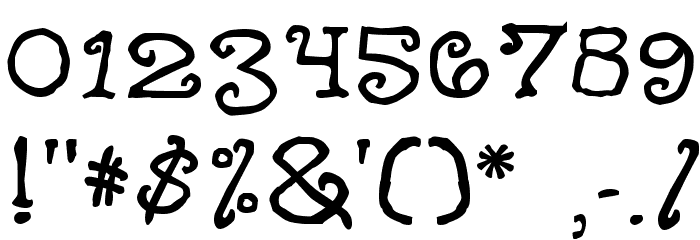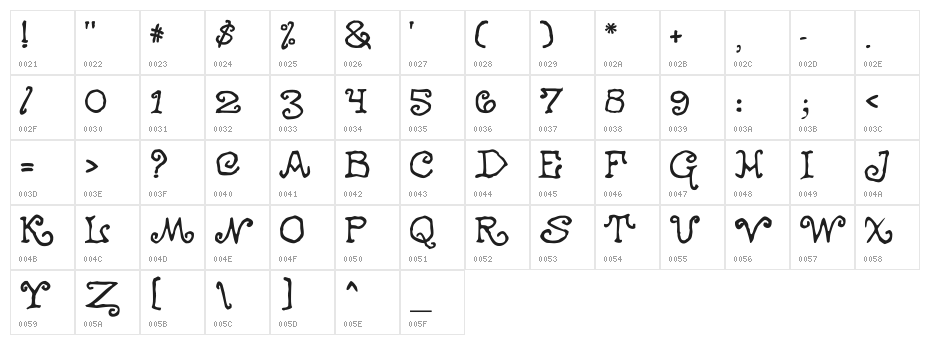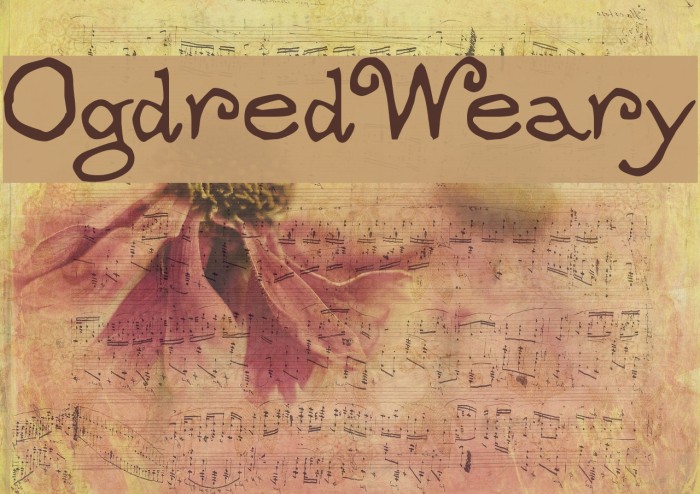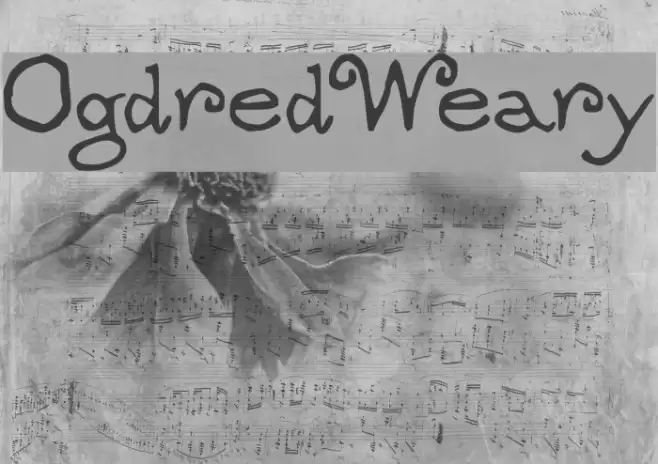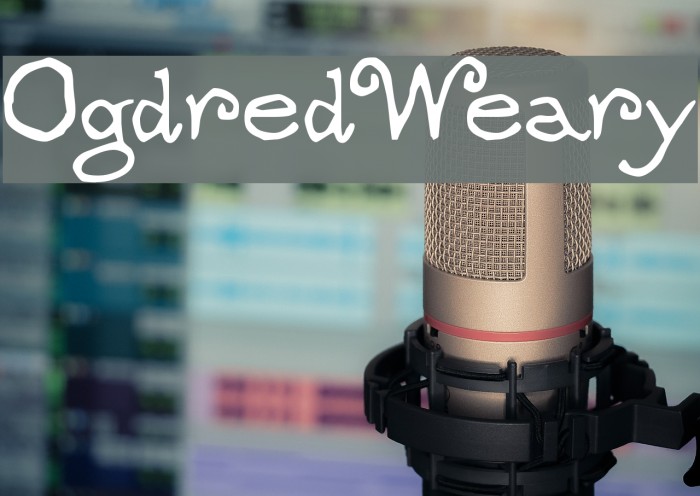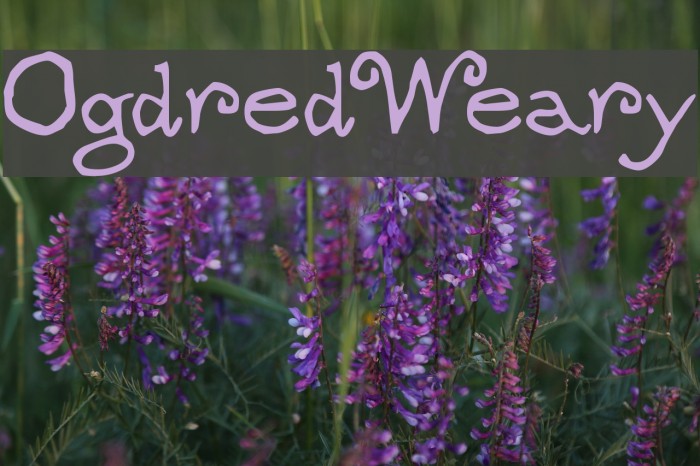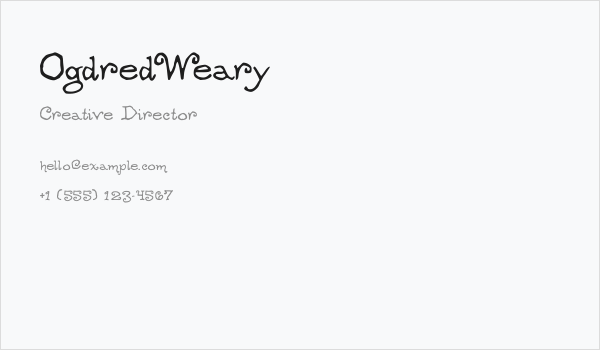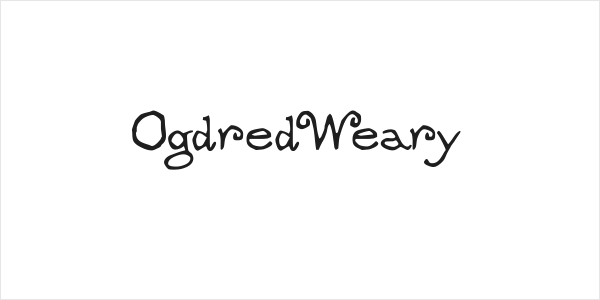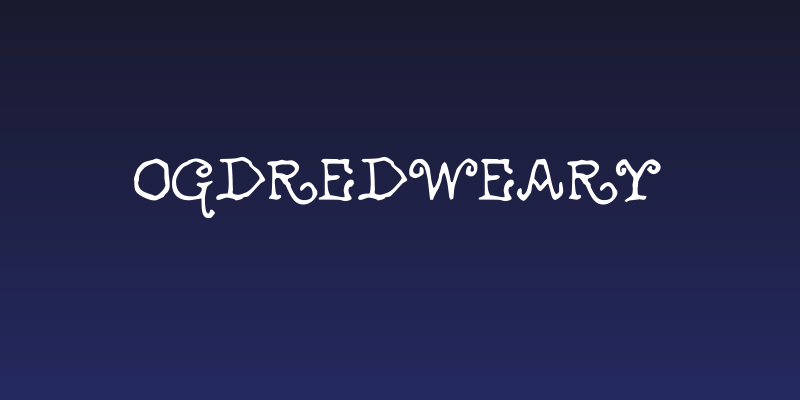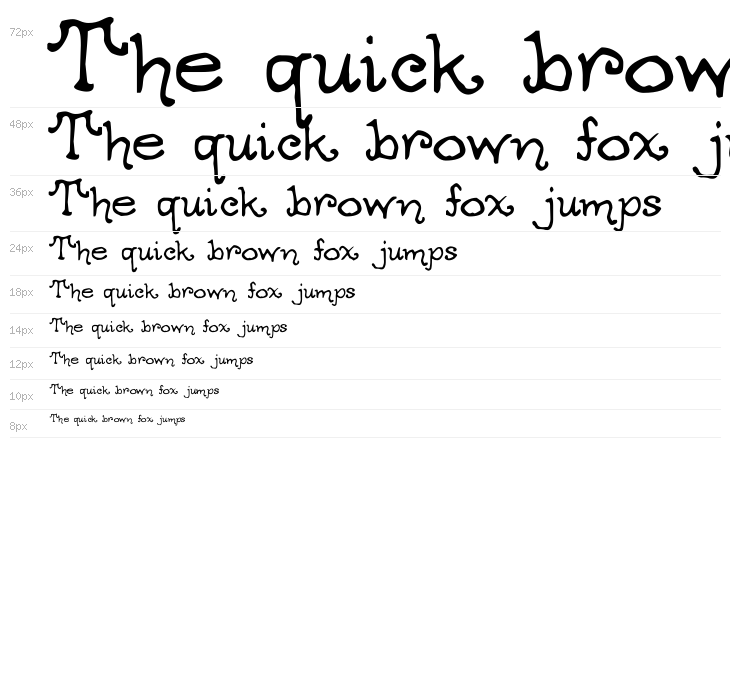
OgdredWeary Font
OgdredWeary Description
This font features a whimsical and playful design with a hand-drawn aesthetic. The characters are uneven and quirky, with exaggerated curves and loops that give it a unique and artistic flair. The uppercase letters have a distinct, bold presence, while the lowercase letters maintain a consistent style with slightly more subtle embellishments. Numbers and special characters follow the same playful theme, making the font cohesive and visually interesting. The overall appearance is reminiscent of a storybook or fantasy theme, perfect for creative projects that require a touch of imagination.
| Overall Style | Whimsical, Artistic |
| Use Case | Headlines, Logos, Creative Projects |
| Proposed Projects | Ideal for children's books, fantasy-themed designs, creative posters, and artistic branding. |